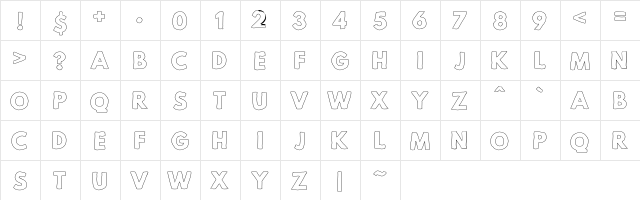
Mild Life Outline Personal Use Outline
Design Context for Mild Life Outline Personal Use Typeface
Mild Life Outline Personal Use is built around its visual character rather than neutral utility — its distinctive forms are designed to make an impression at display sizes.
Font Pairing: Pair with a clean neutral sans-serif for body copy to let Mild Life Outline Personal Use's character lead without overwhelming the composition.
Pro Tip: Treat Mild Life Outline Personal Use as the centrepiece of your typographic hierarchy. One strong heading set in a decorative face can carry an entire layout.